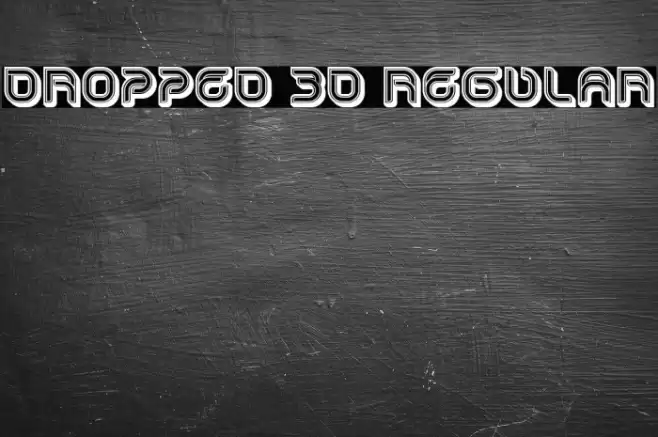
Dropped 3D Regular Font
Dropped 3D Regular Description
This font features a bold, three-dimensional appearance with a distinct drop shadow effect that gives it a striking, layered look. The characters are outlined with a thick black border, enhancing the 3D illusion and providing a sense of depth. The design is geometric and structured, with rounded edges that soften the overall appearance. The uppercase letters are consistent in height, while the numerals and special characters maintain the same stylistic approach, ensuring uniformity across all elements. This font is ideal for creating eye-catching headlines or logos that require a modern and dynamic feel.
A bold, 3D font with a striking drop shadow effect and geometric design from Uncategorized fonts.